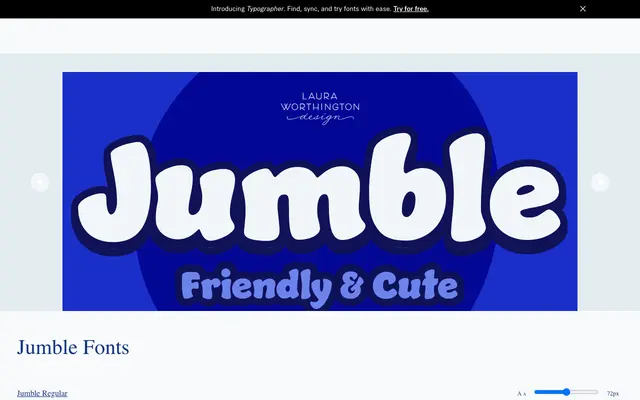
Jumble
A thick, rounded display face with 104 alternates and no two identical counterforms, aimed at food packaging and child-friendly applications.
Built entirely from curved strokes with jaunty counters and deliberately varied counterforms, this single-style face avoids straight lines entirely to produce a warm, approachable character. OpenType alternates number 104, plus a handful of ligatures, offering considerable variety within a single weight. Its character suits frosted-cake branding, confectionery packaging and children's game design rather than extended text.
A single-weight display face built around thick, curvy strokes with no straight lines or sharp edges, designed explicitly for playful, whimsical contexts such as food packaging and children's products.